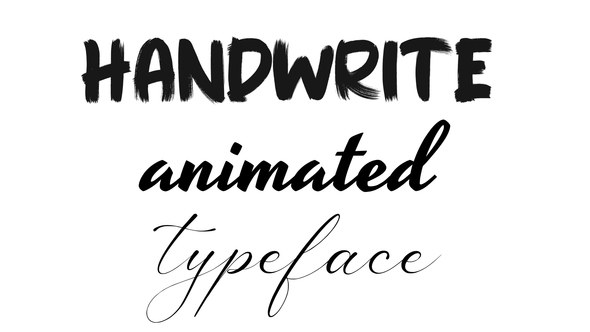
Videohive Handwritten Brush Typeface
Handwritten Brush Typeface
Get great results quickly with this easy-to-use AE template. Simply drag and drop your symbols onto the timeline, align them, add your custom colors, and enjoy the final product!
Project features:
- 60 Animated Characters
- Full Animated Alphabet A-Z
- Animated Numbers 0-9
- 24 Animated Symbols
- Clean Modern Design